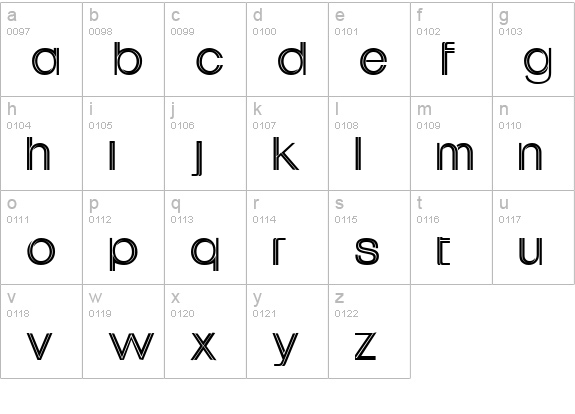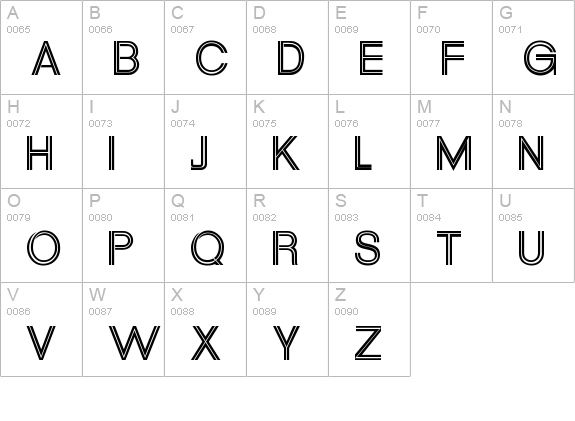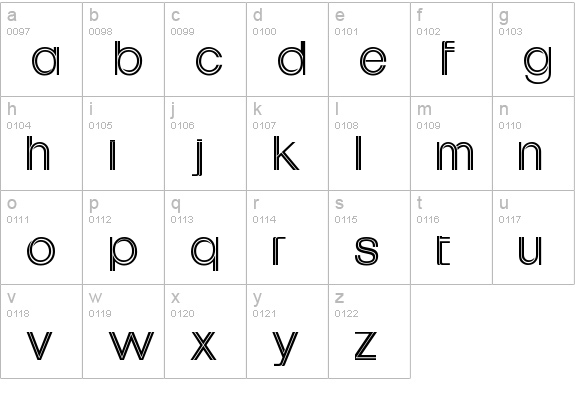
Uptight Regular Font Details
Uptight Regular is the standard, neutral variant in the Uptight typeface family \xE2\x80\x94 well suited to general body text, paragraphs, and standard typographic work.
Introducing Uptight Regular, a sleek and sophisticated font that exudes an air of elegance and professionalism. Designed with clean lines and a modern twist, this typeface is perfect for creating sleek and polished designs that demand attention. Uptight Regular is the epitome of style and refinement, with its sharp edges and precise letterforms. Its versatility allows it to be used in a variety of design projects, from corporate branding to editorial layouts. With its timeless and classic appeal, this font is sure to make a lasting impression. But what sets Uptight Regular apart is not just its impeccable design, but also its accessibility. This font is freely available to download at FontsMarket.com, allowing designers and creatives to incorporate this beautiful typeface into their projects without any cost. Whether you're working on a personal project or a professional endeavor, Uptight Regular is the perfect choice for adding a touch of sophistication to your designs. So go ahead, download Uptight Regular for free at FontsMarket.com and elevate your typography game to new heights.